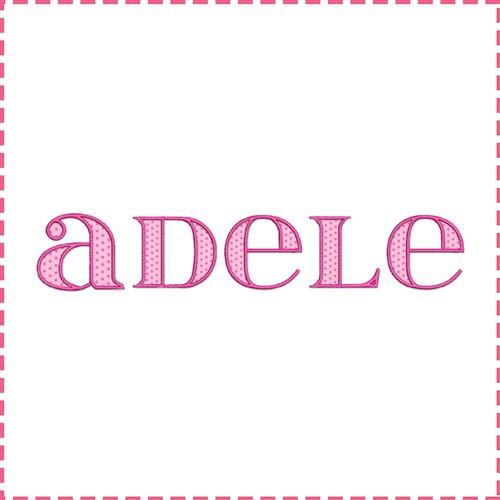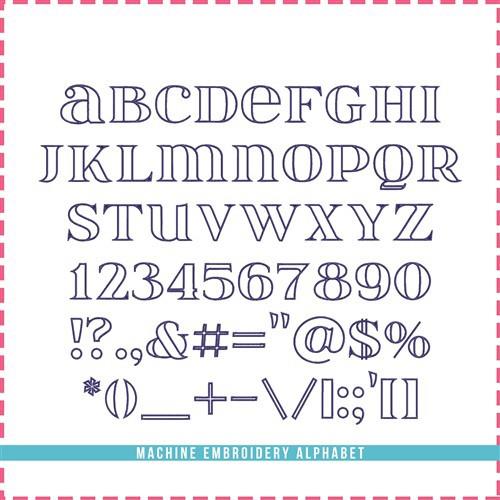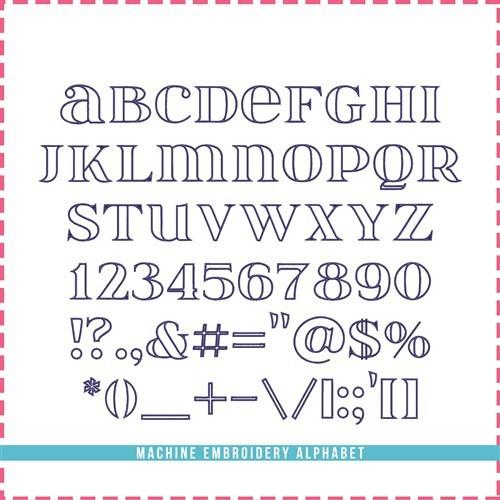
Maya Kreations is happy to present Adele Applique Font machine embroidery font which has Playful pink applique embroidery font suitable for decorative projects on clothing and accessories. This design features a fun polka dot pattern. Available in PES, DST, and other home format options. included. If you would like to view more embroidery fonts and alphabets please search our embroidery fonts page.